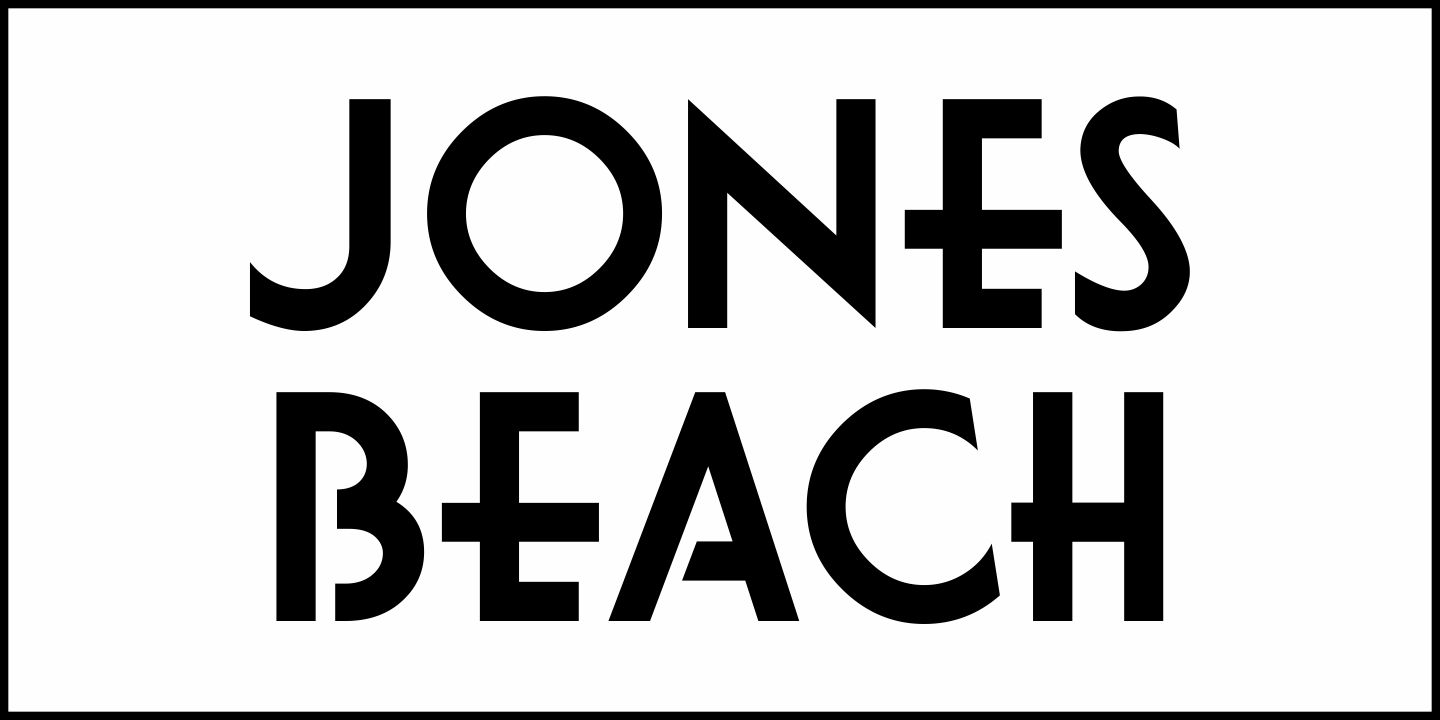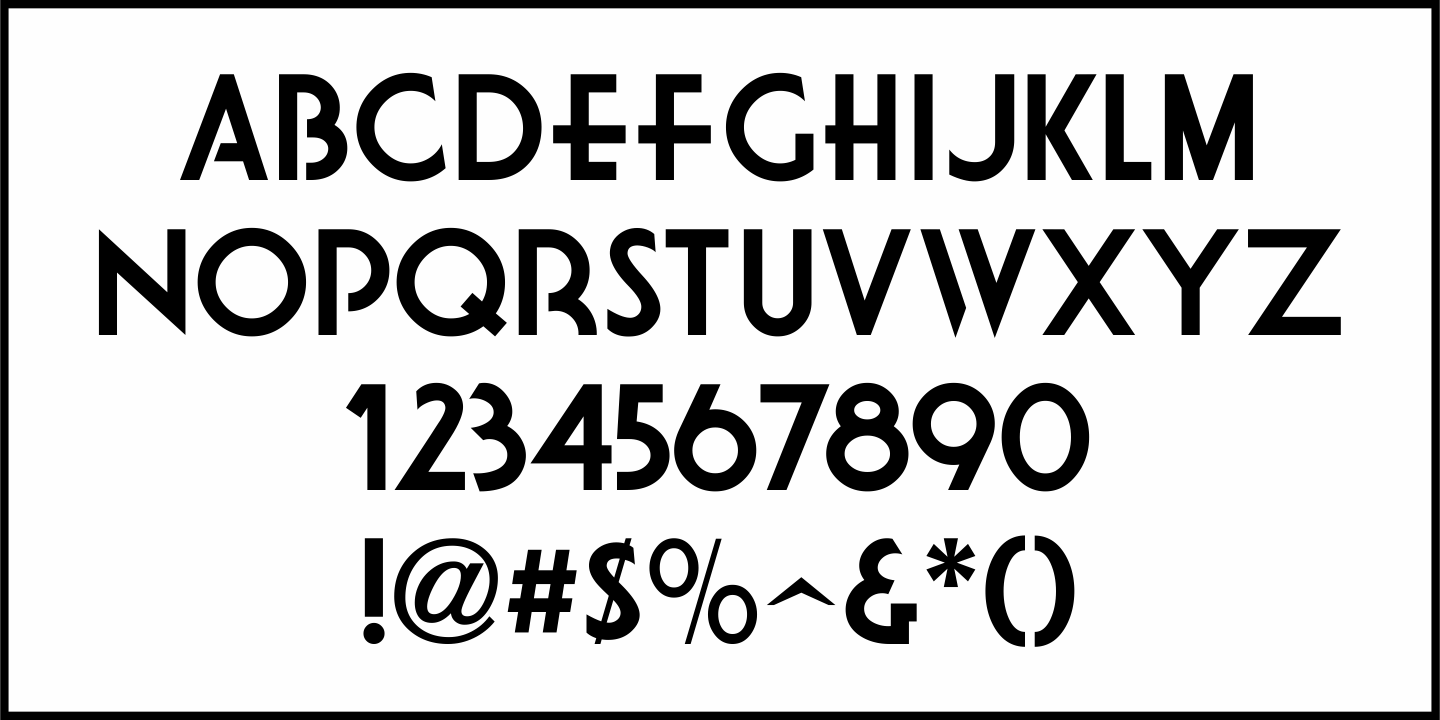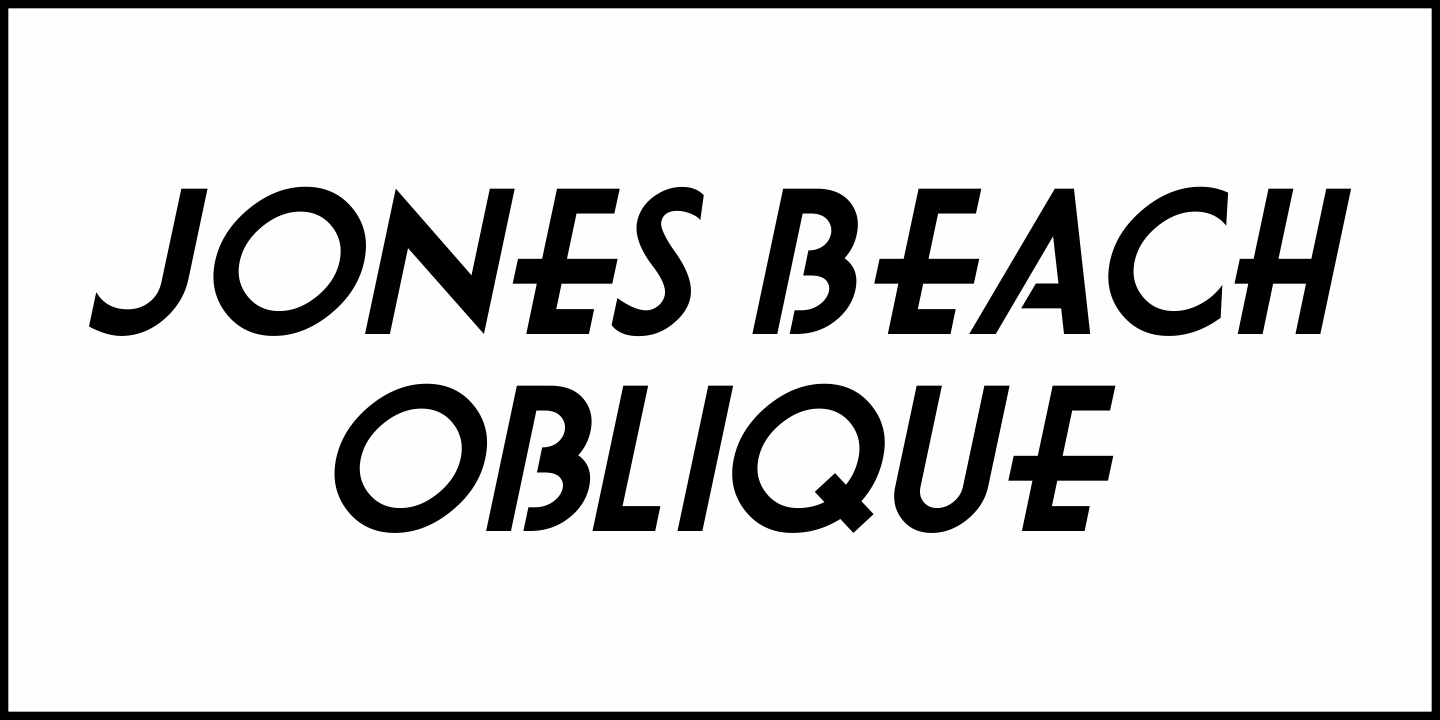
Jones Beach JNL
Jones Beach JNL (available in both regular and oblique versions) is a sans serif, Art Deco type design inspired by its namesake - an image of a vintage advertising sign for Jones Beach State Park located in Wantagh, Long Island.
The sign itself was used as part of bus advertising and was inserted into a frame running above the passenger seating.